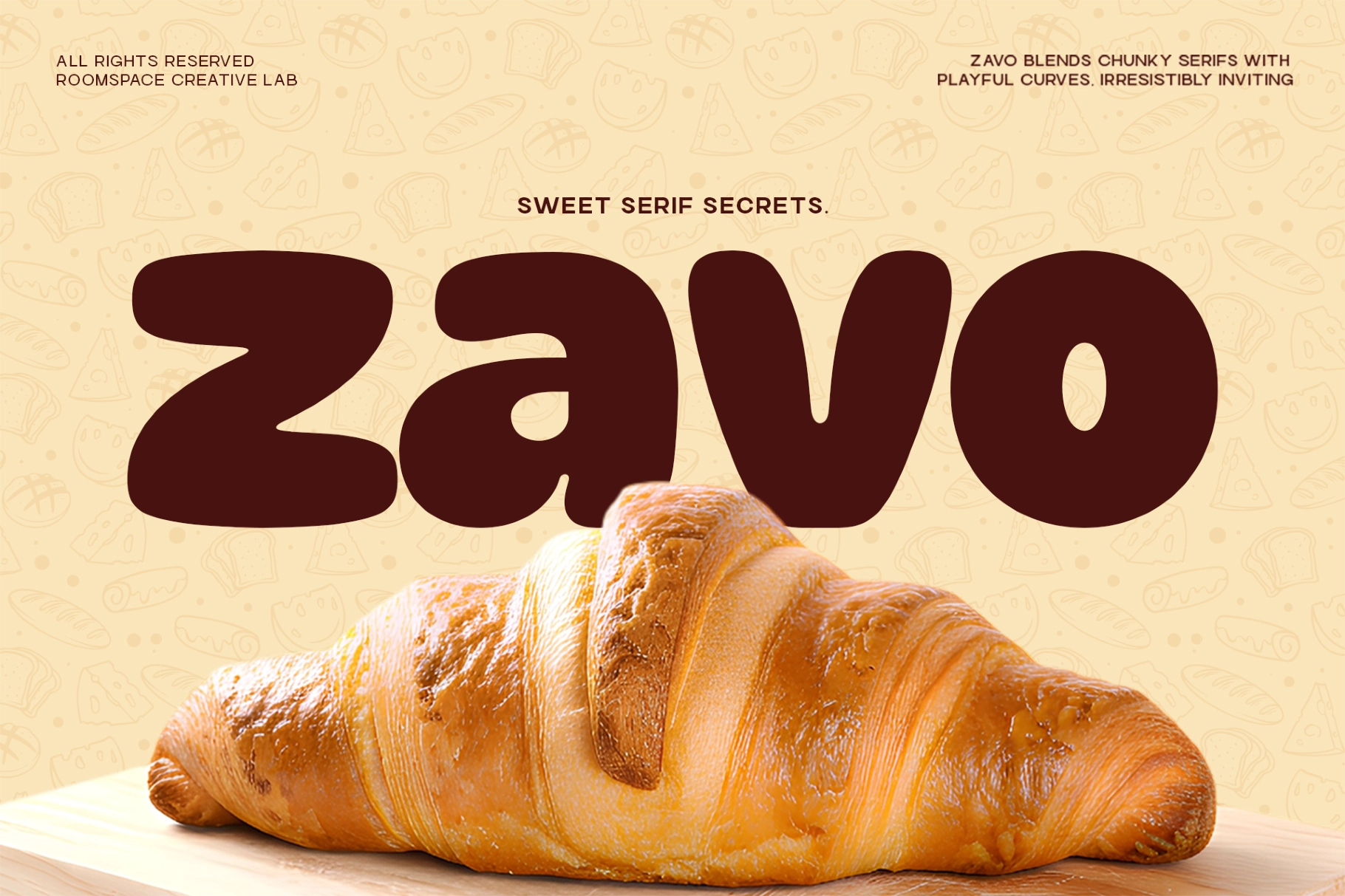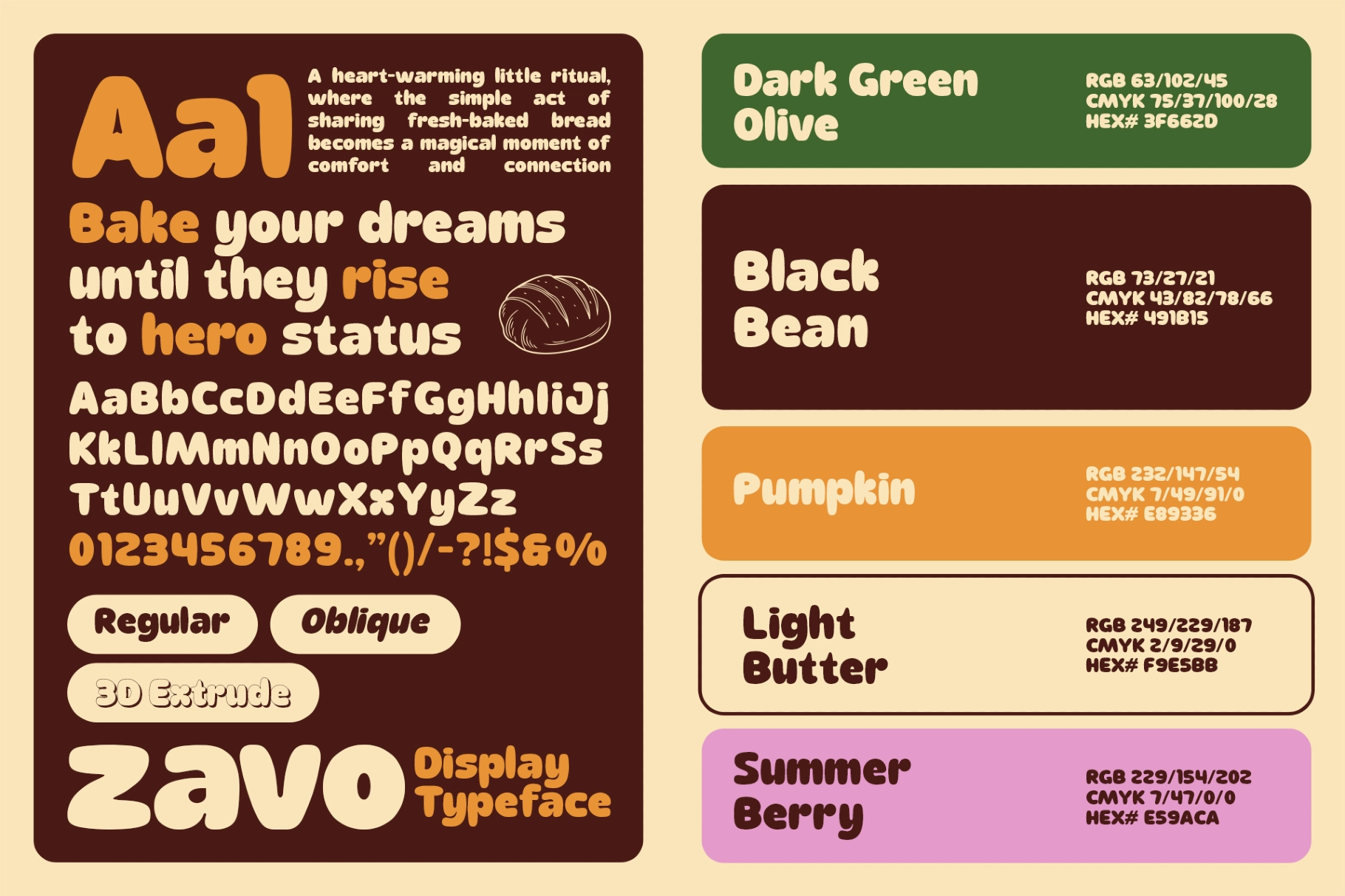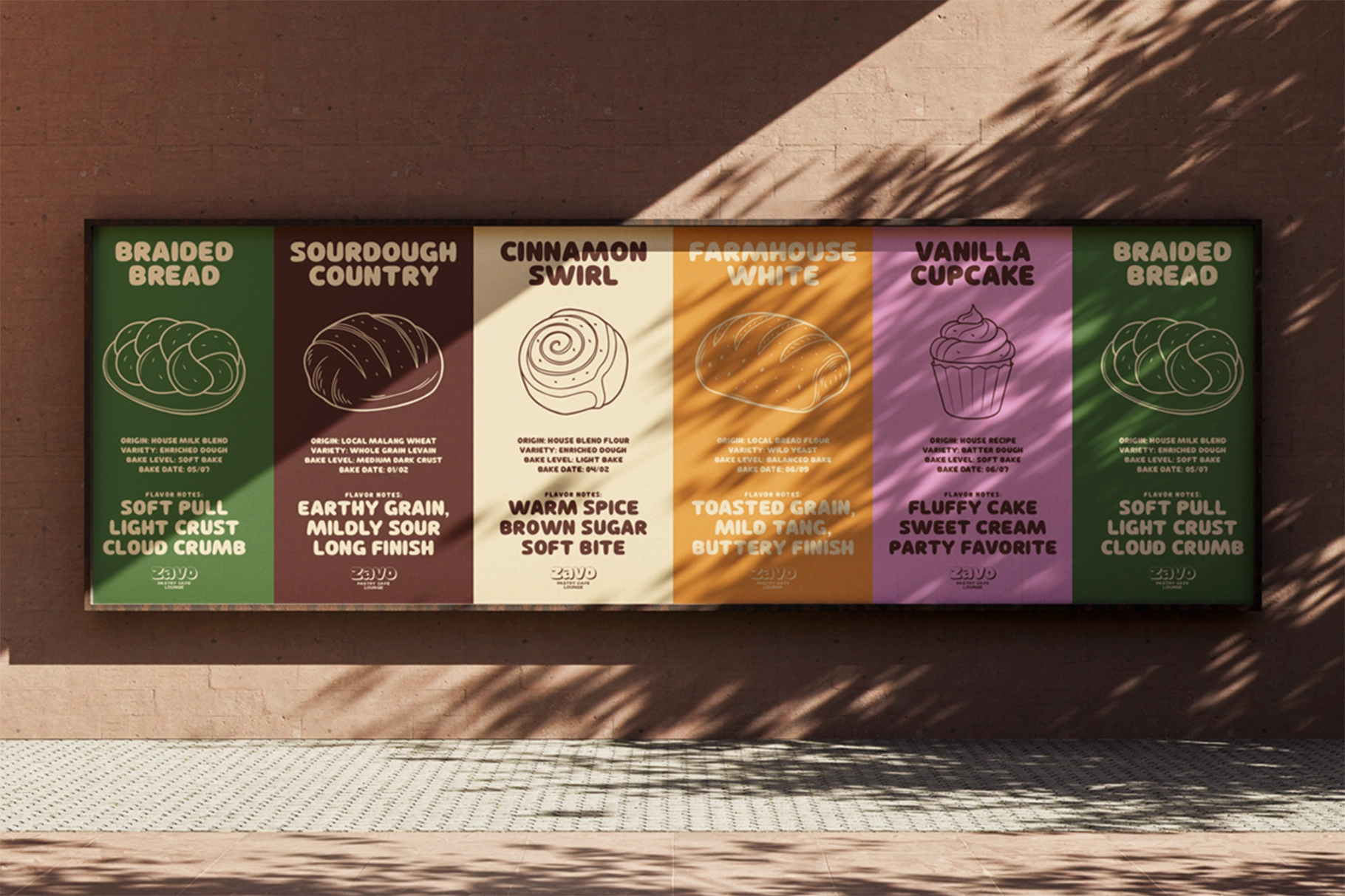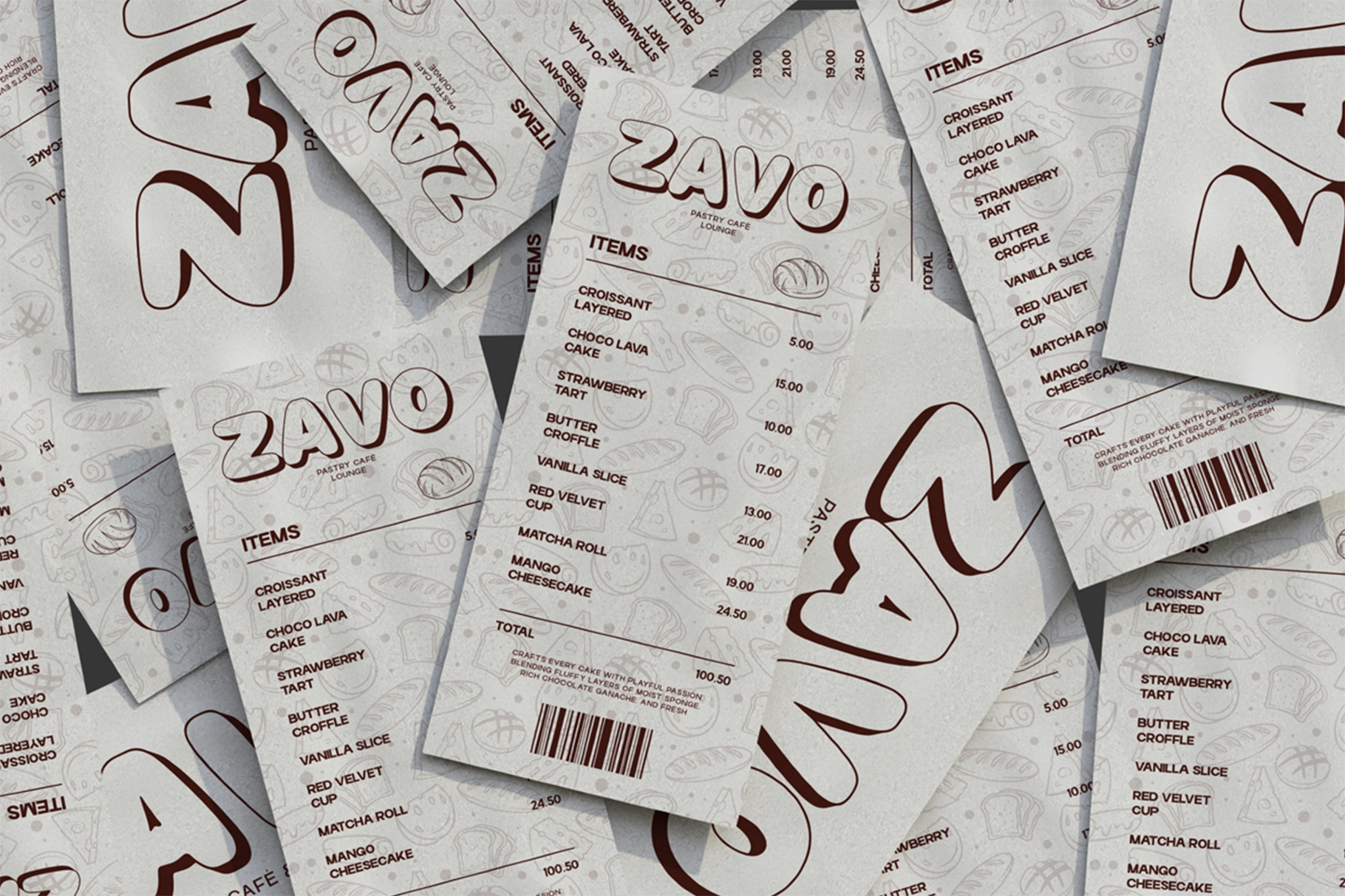
Zavo Sans – Playful Food Branding Font
Rounded, bold, and full of pastry-counter charm, this playful display typeface is made for brands that want big letters with a soft smile. Its chunky forms, bubbly curves, and easygoing rhythm give packaging, signage, and headlines a cheerful visual punch without the corporate handshake.
Zavo Sans works for bakery branding, café menus, snack packaging, dessert labels, kids’ products, food trucks, recipe cards, window posters, social media graphics, sticker packs, merch designs, playful logos, and more. The typeface has strong display readability across short names, product flavors, menu headers, and bright campaign copy.
• 3 Styles: Regular, Oblique, Extrude